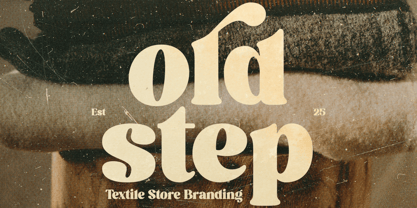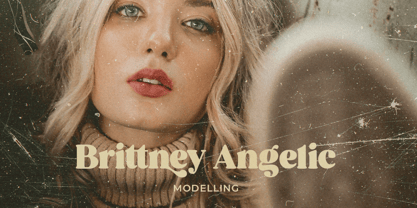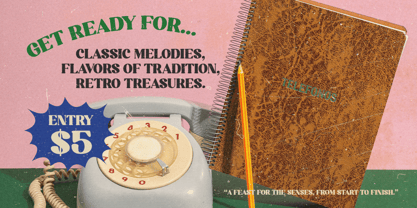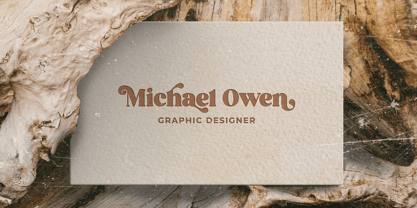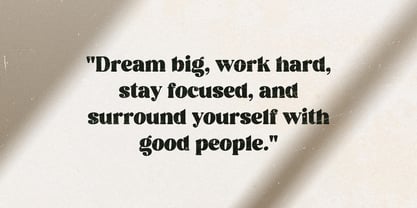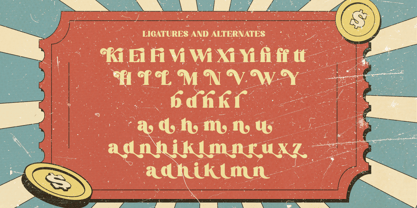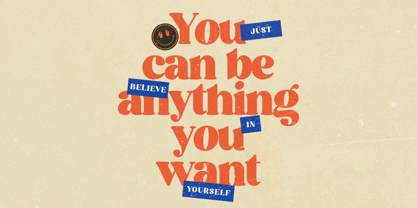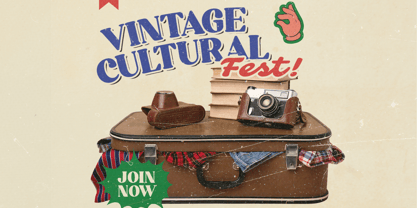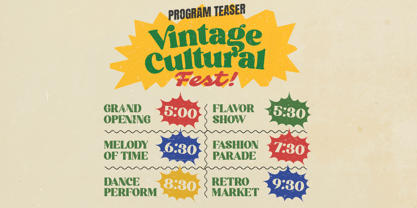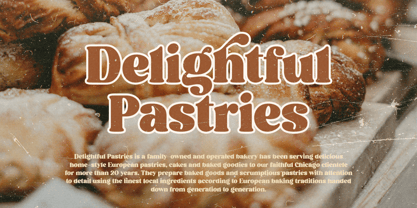
Kindfield
by Heinzel Std
The Kindfield Font Family was designed by Nofi Sofyan Hadi and published by Heinzel Std. Kindfield contains 1 styles. More about this family
Kindfield is a retro serif font inspired by mid-century design and vintage advertising aesthetics. Featuring soft curves, bold serifs, and charming letterforms, Kindfield delivers a warm, nostalgic feel with a modern touch. Its distinctive personality makes it perfect for logos, packaging, posters, branding, headlines, apparel, and editorial designs that aim to stand out with timeless character. Kindfield blends classic retro vibes with contemporary usability, making it a versatile choice for creative projects that need both style and readability.
Designers: Nofi Sofyan Hadi
Foundry: Heinzel Std